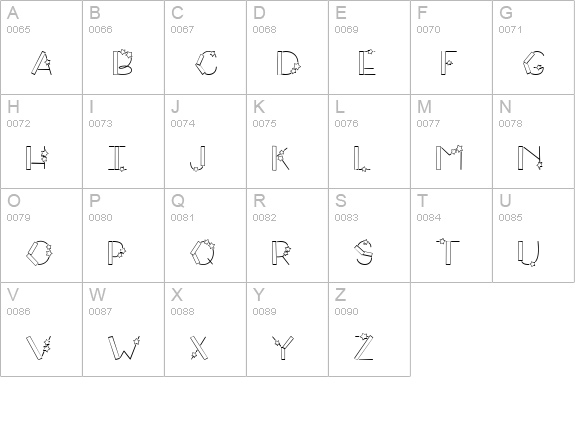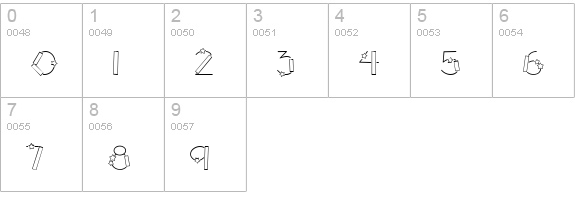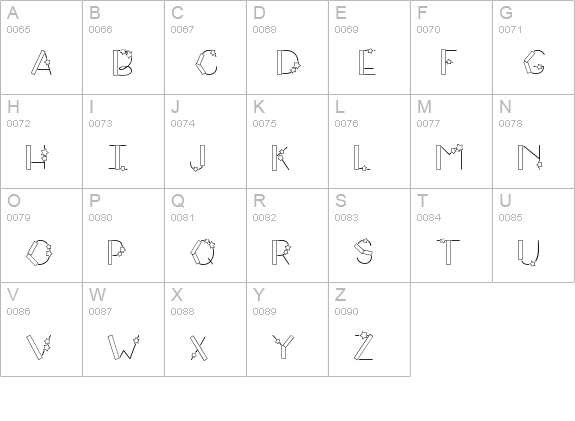
Ck Stars & Stripes Font Details
Ck Stars & Stripes is a bold and eye-catching font that exudes patriotism and charm. Its unique design features playful stars and stripes elements, making it perfect for projects related to Independence Day, American holidays, or any theme that calls for a touch of Americana. This versatile font is sure to make your designs stand out and capture attention. Best of all, Ck Stars & Stripes is completely free to download at FontsMarket.com. You can easily add this fun and festive font to your collection without any cost, allowing you to unleash your creativity without limitations. Whether you're working on posters, invitations, banners, or any other design project, Ck Stars & Stripes is the perfect choice to inject a dose of fun and patriotism. Download it today and let your designs shine bright with this free and fabulous font!